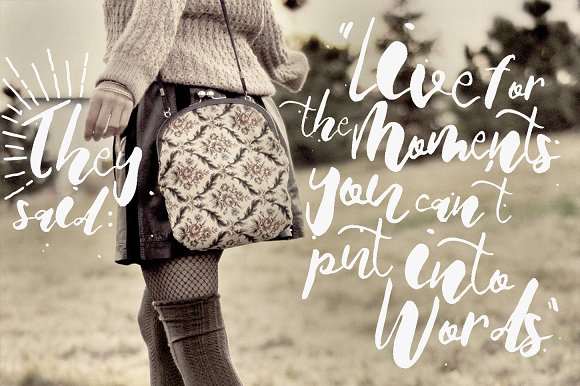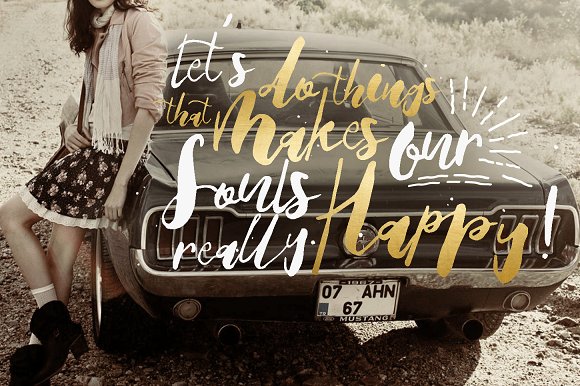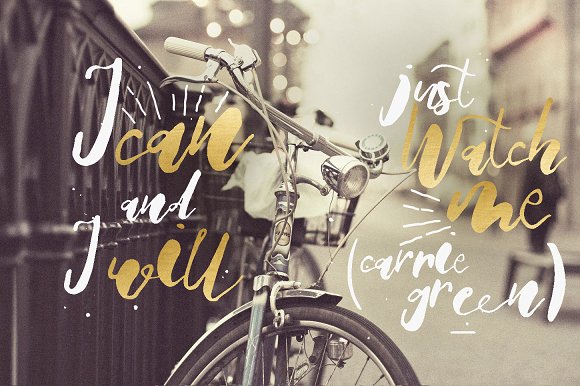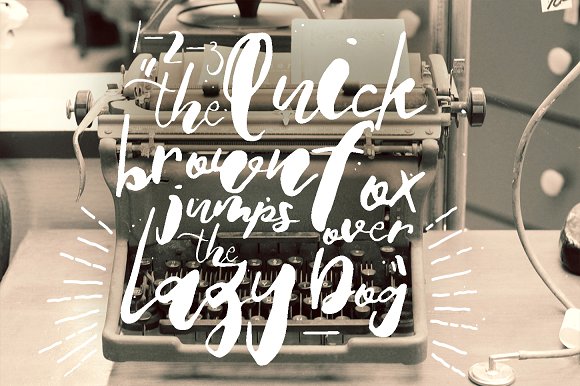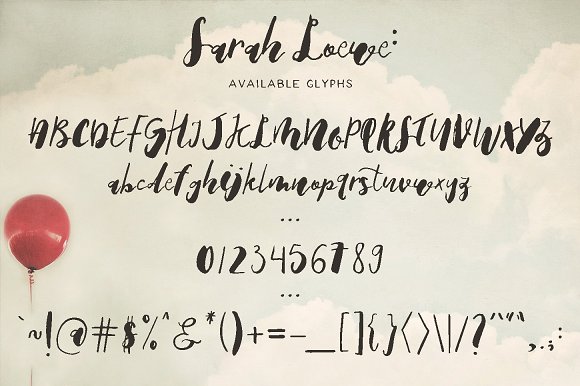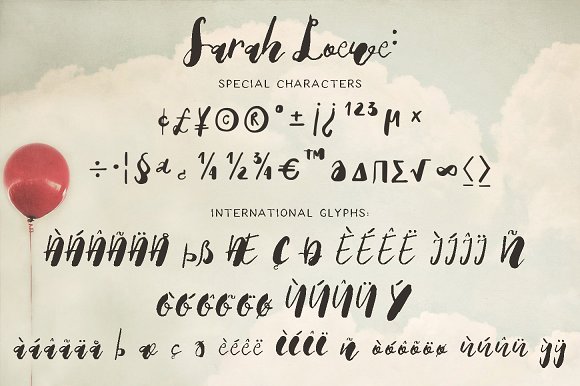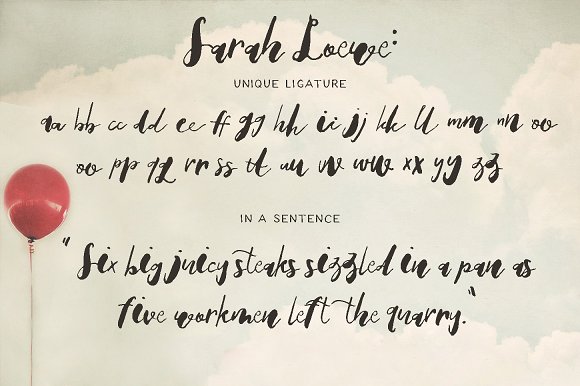
Sarah Loewe Font
About Sarah Loewe Font
Sarah Loewe is a mix of thin and fat-shaped glyhps. Combined this turn into a fun & playful script font.
Sarah Loewe is manually created using a brush pen. It comes packed with unique swashes.